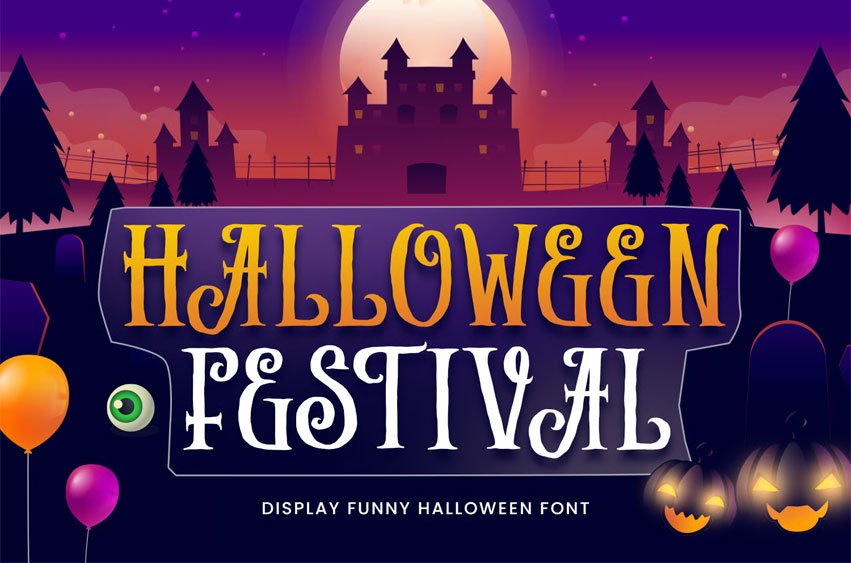
Halloween Festival Font is a bold and spooky horror display font inspired by festive Halloween nights, creepy decorations, and mysterious celebrations. Its striking letterforms feature eerie details and playful horror elements that perfectly capture the fun yet frightening spirit of Halloween Day.
Designed as a powerful display font, Halloween Festival is ideal for Halloween-themed designs such as posters, banners, party flyers, event signage, and festival promotions. The strong character shapes make every word stand out, creating an eye-catching and spooky visual impact.
This font is also versatile for seasonal and creative projects beyond Halloween. It works beautifully for Halloween invitations, Thanksgiving designs with an autumn mood, fall-themed crafts, and expressive lettering projects that need a touch of horror style.
Halloween Festival is suitable for SVG files and cutting machines, making it perfect for Cricut projects, DIY crafts, stickers, posters, and other creative applications. Its clear display style ensures readability while maintaining a fun and scary Halloween aesthetic.